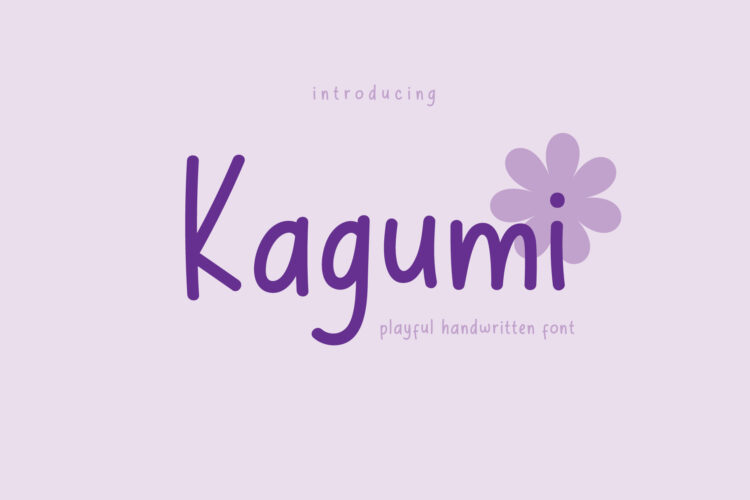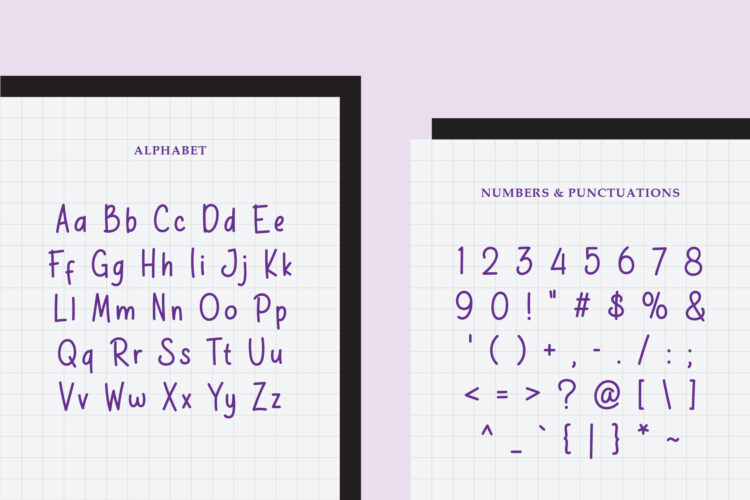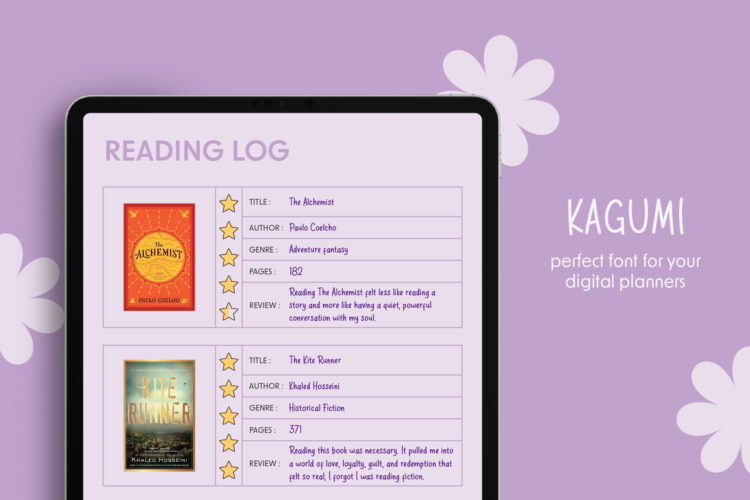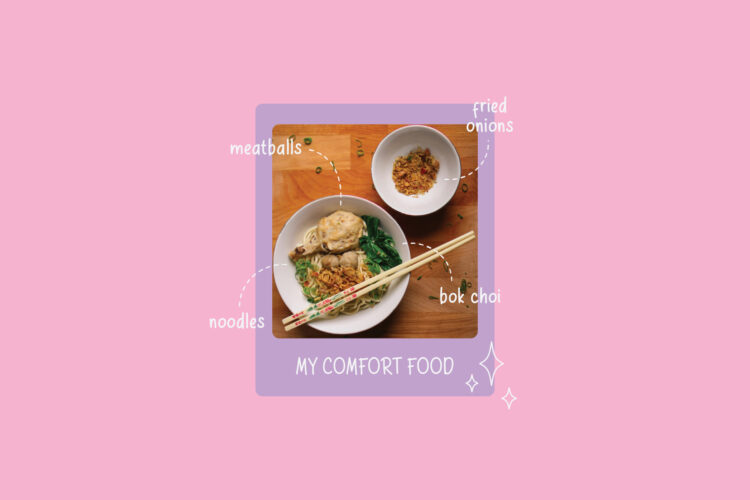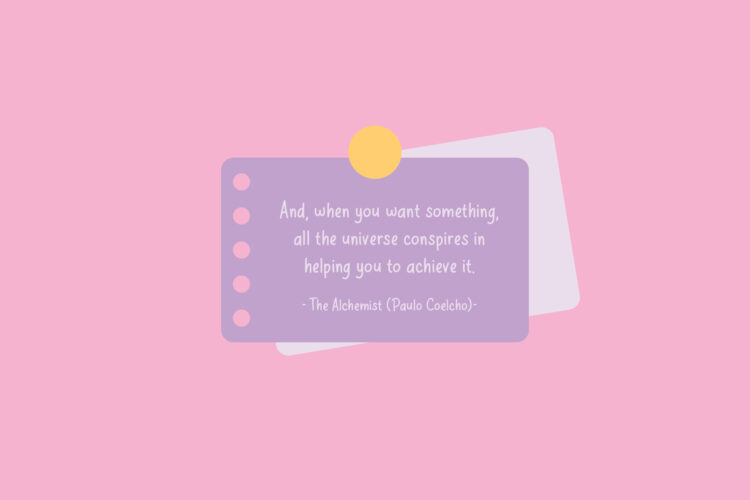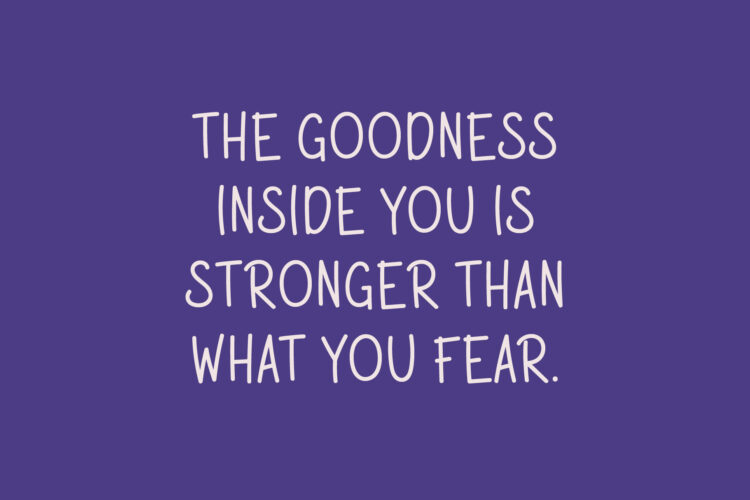
Say hello to Kagumi, a sweet and silly handmade font made just for fun! Its bouncy, childlike letters are perfect for anything bright, colorful, and full of energy. Whether you’re working on a kids’ birthday invitation, a toy label, or a picture book cover, Kagumi adds instant joy.
The font includes uppercase and lowercase letters, numbers, and basic symbols. Everything is hand-drawn to keep the look personal and friendly. Itβs simple to use, but full of personality.
From giggles to imagination, Kagumi brings your playful ideas to life. Use it when you want your design to feel happy, handmade, and just a little bit magical.